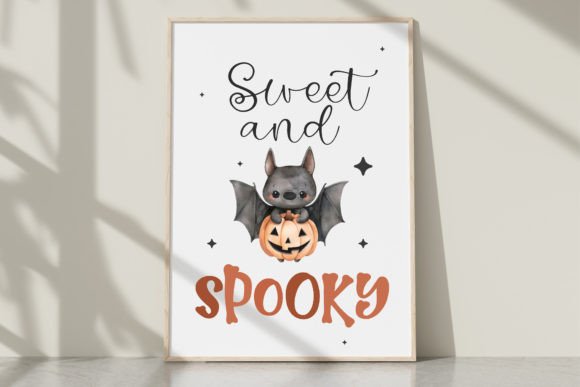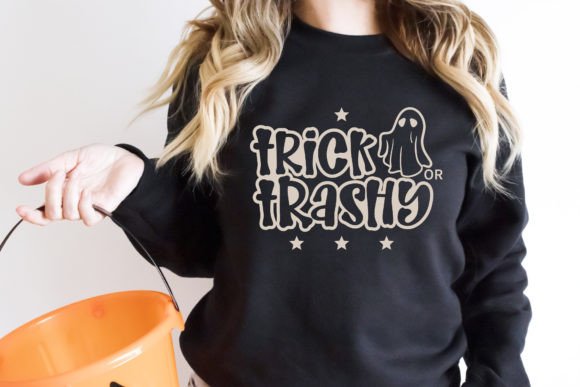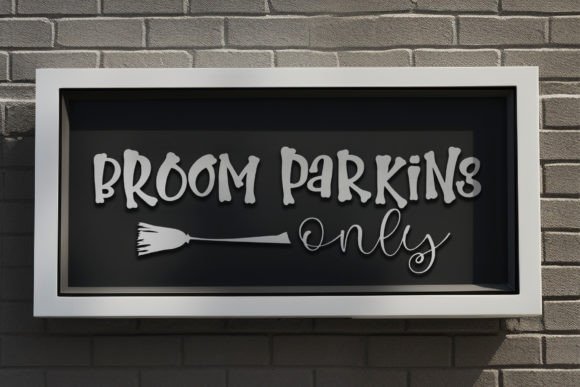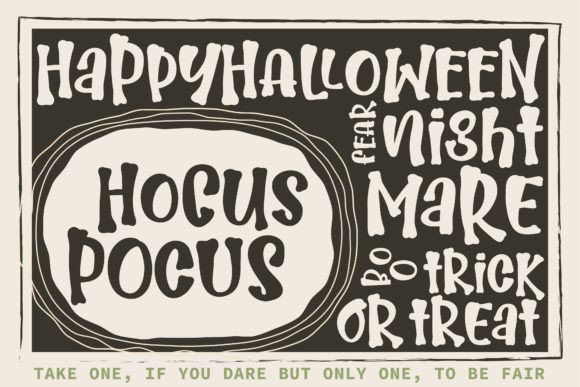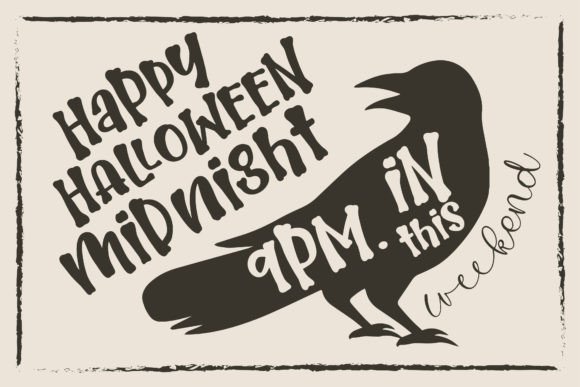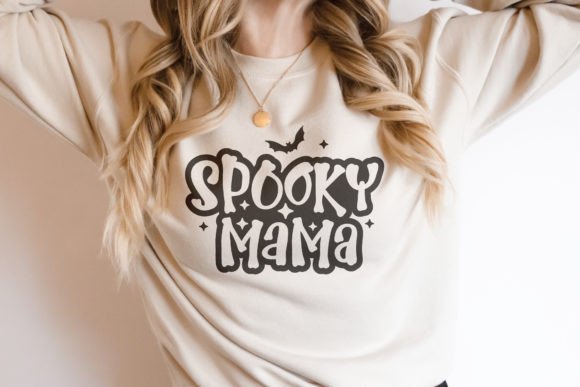
The Spooky Charm of Ghost Night Font: A Designer’s Delight
As a designer, I’ve had my fair share of late nights searching for the perfect font to bring a project to life. One of my most memorable experiences was working on a Halloween-themed invitation for a client. I wanted to create something that would capture the essence of the spooky season, but I was struggling to find a font that would add the right amount of drama and whimsy. That’s when I stumbled upon Ghost Night Font, a sweet and spooky Halloween font duo that has since become a staple in my design toolkit.
A Personal Review: What I Love and What to Watch Out For
- ✨ Spooky-ooky charm: Ghost Night Font has a unique blend of sweetness and spookiness that’s perfect for Halloween-themed projects.
- ✅ Versatile: This font duo can be used for a wide range of projects, from invitations and party decorations to social media graphics and more.
A Few Quirks to Keep in Mind 🤔
- ⚠️ Glyph overload: With so many glyphs and ligatures to choose from, it can be overwhelming to navigate the font menu.
- ⚠️ Legibility at small sizes: While the font looks great at larger sizes, it may become less legible at smaller sizes.
The Story Behind Ghost Night Font
Legend has it that Ghost Night Font was inspired by the spooky nights of a small town in the United States. The font’s creator, a freelance designer, wanted to capture the essence of Halloween in a font that would be both sweet and spooky. After months of research and design, Ghost Night Font was born.
Q: Is Ghost Night Font suitable for body text?
A: While Ghost Night Font is beautiful, it’s best suited for headings and titles. For body text, consider using a clearer font.